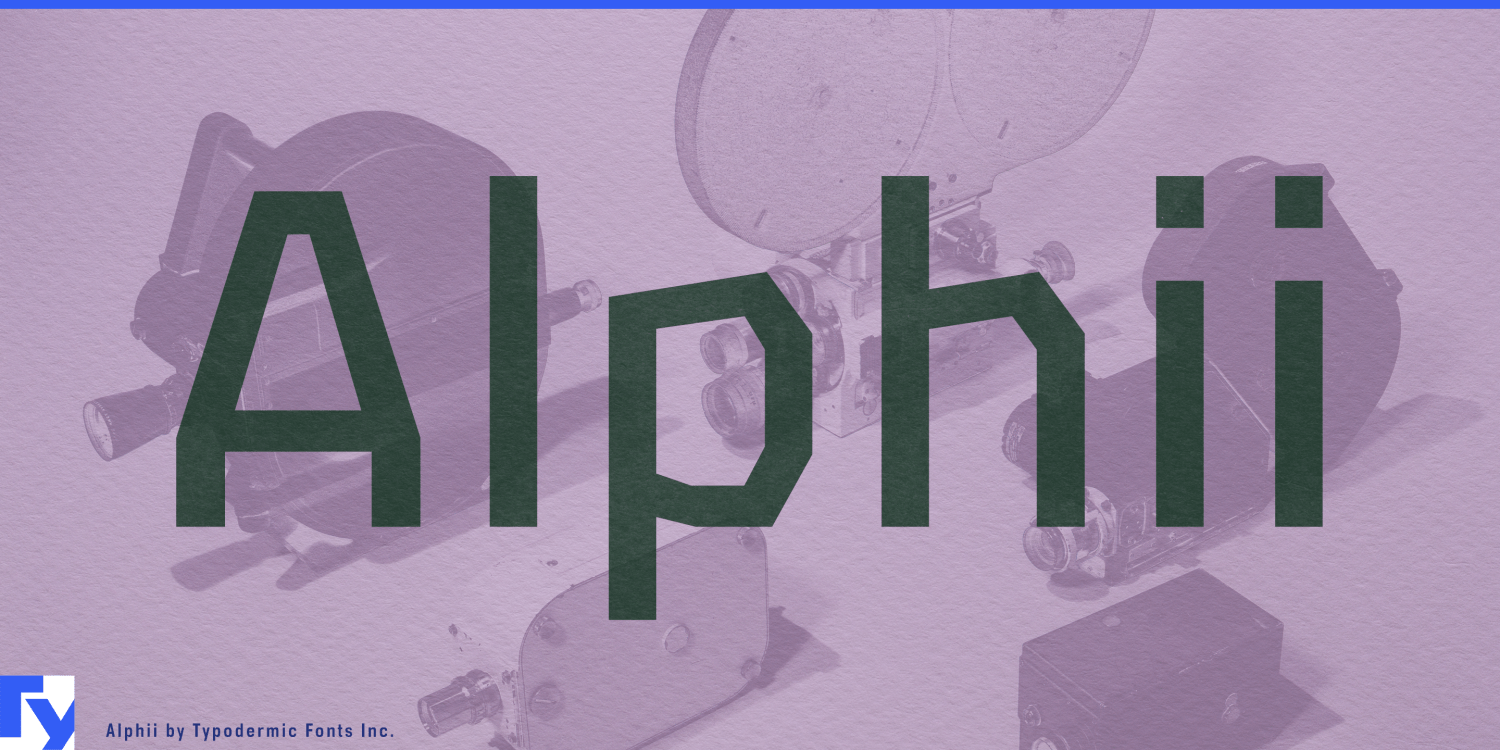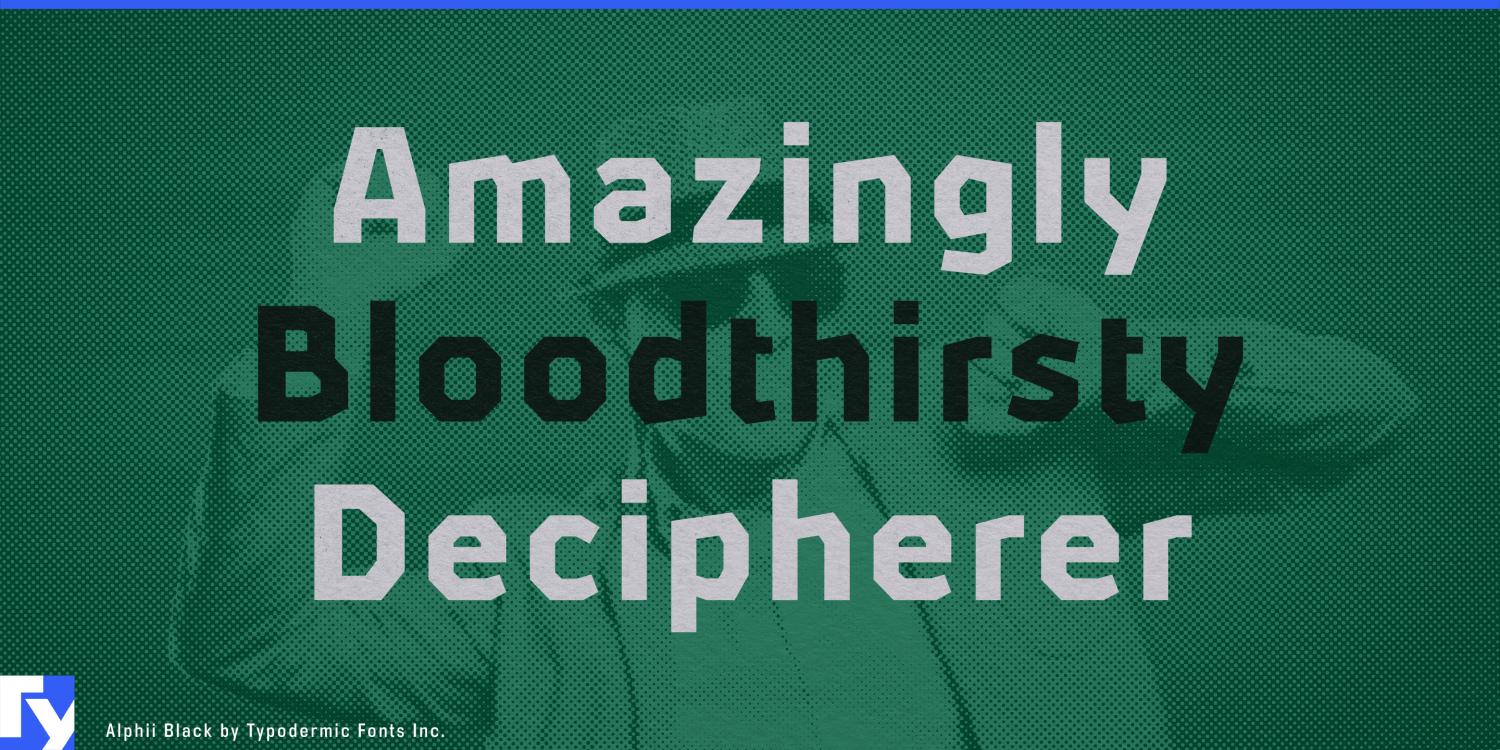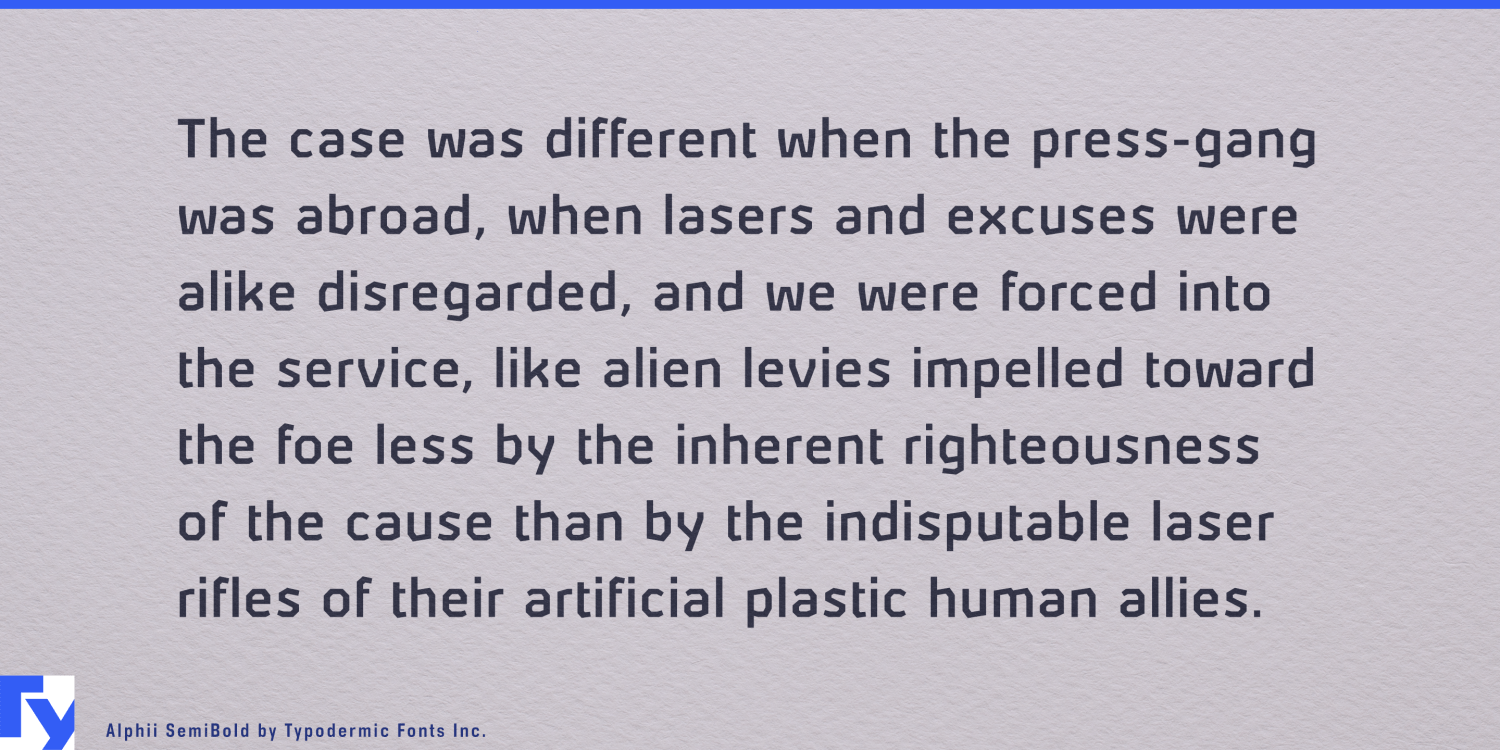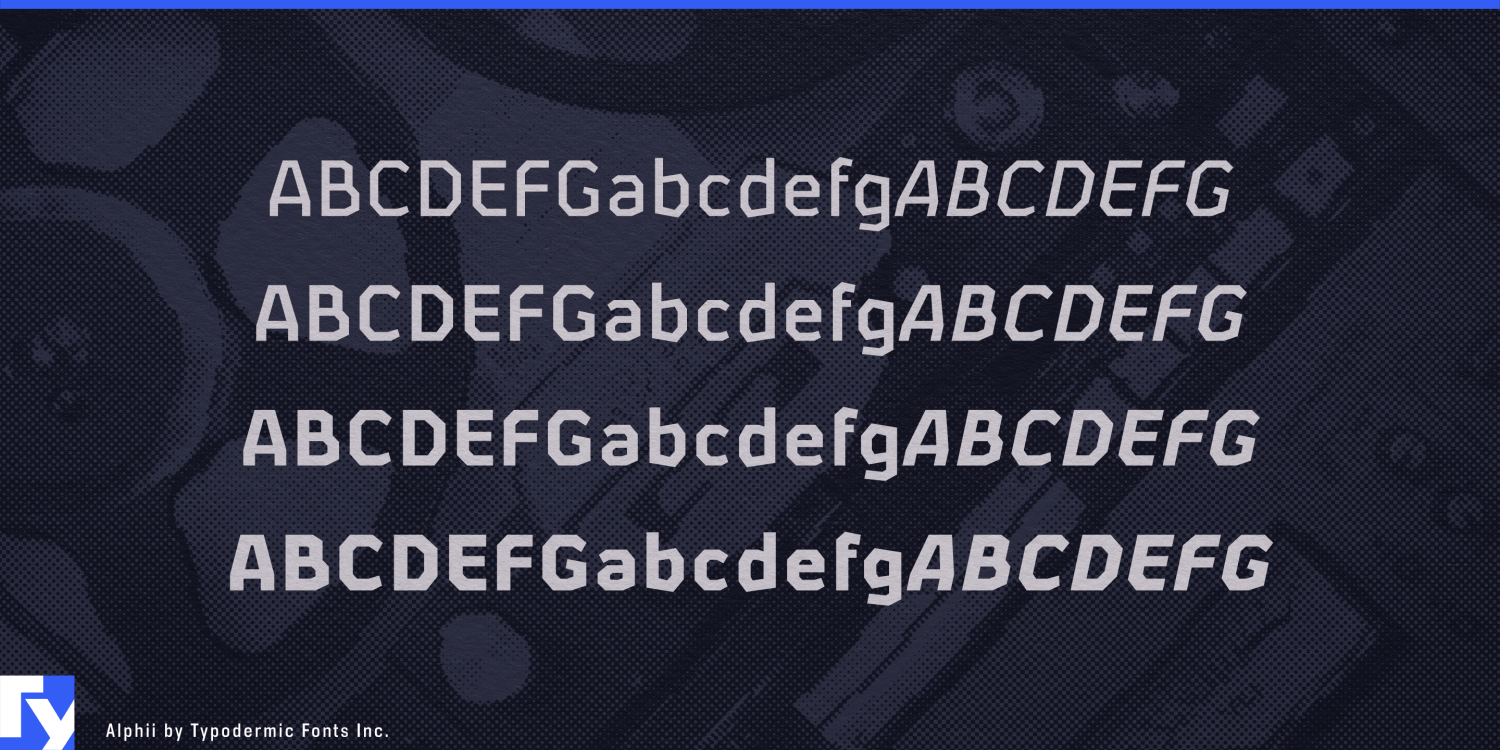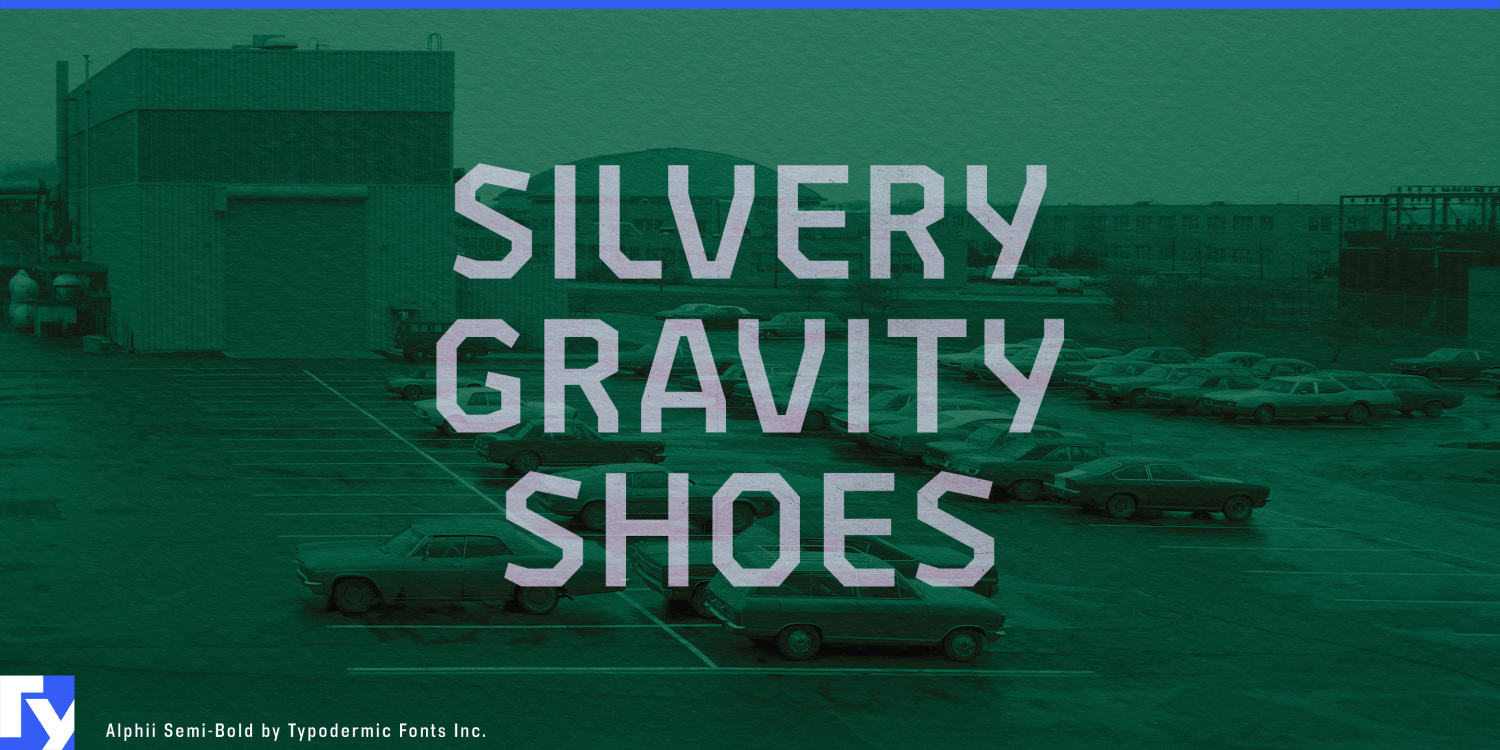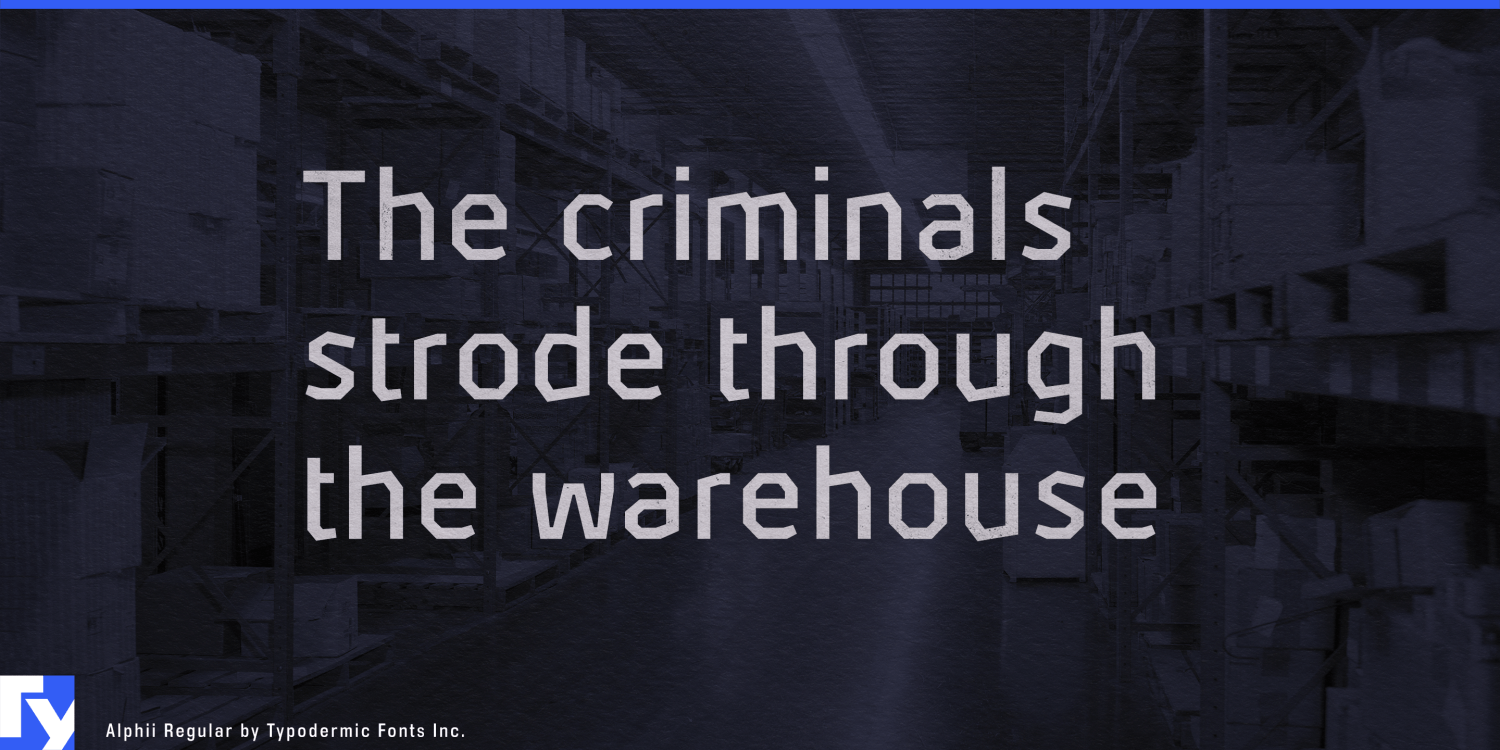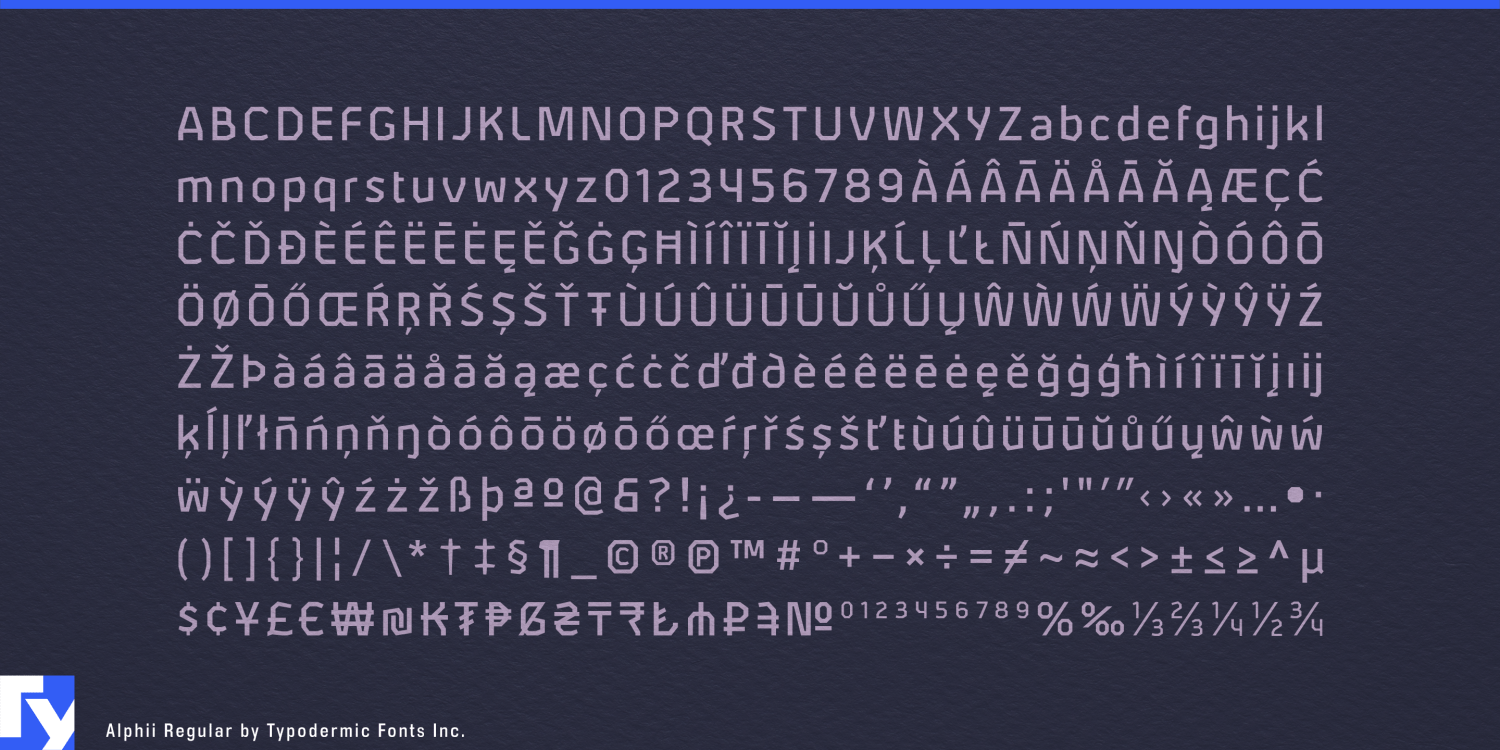
Alphii
Alphii occupies the space between a drawing and the finished object. Familiar humanist forms are rebuilt from straight cuts and mitred joins; curves become facets, bowls resemble bent panels, and open counters preserve a recognizable reading rhythm. The result gives architecture, fabrication, and industrial design a technical voice without falling back on military stencils or square futuristic lettering.
Architectural product companies are a natural fit. Facade systems, prefabricated construction, modular furniture, acoustic panels, engineered surfaces, and architectural hardware all involve components designed to meet at precise angles. Alphii can carry that structural logic into material sample books, product catalogues, trade-fair displays, construction hoardings, and identities for contemporary developments. Its letterforms complement drawings and renderings without pretending to be technical notation.
Digital fabrication makes the connection more literal. Additive-manufacturing companies, CNC services, CAD and CAM software, industrial-design consultancies, and prototyping firms translate complex forms into controlled geometry. Alphii suits machine model names, software dashboards, material packaging, technical case studies, and conference graphics for these industries. It does not imitate a mesh or toolpath; it shares their economy, replacing smooth curves with just enough straight segments to define the form.
The same principle applies when an entire environment becomes a constructed model. Drone-surveying services, geospatial platforms, terrain-modeling tools, point-cloud processors, and digital-twin systems reduce buildings and landscapes to simplified geometric information. Alphii can provide platform names, map-report headings, dashboard labels, and exhibition graphics that belong beside those models.
Alphii can also set real text. Its readable lowercase, open counters, and familiar proportions allow the structural character to continue through descriptions, captions, interpretive panels, and moderately sized paragraphs. An architectural catalogue or engineering exhibition does not have to abandon Alphii once the headline is finished. A quieter companion may still be useful for dense specifications and very small text; Alphii itself is capable of carrying much of the project.